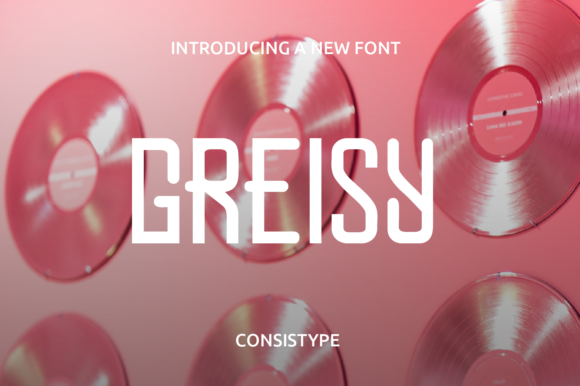
Discover the Playful Charm of Greisy Font
Have you ever stumbled upon a font that instantly sparks your creativity and makes you want to create something new? That’s exactly what happened to me when I first laid eyes on the Greisy Font. Its unique sans serif design and adorable feel had me hooked, and I couldn’t wait to dive deeper into its world.
As a designer, I know how valuable it is to have a font that can add a touch of personality to your projects. That’s where Greisy Font comes in – a modern sans serif font that’s perfect for designers looking to inject some playfulness into their designs. Whether you’re working on a branding project, a social media campaign, or a fun little side hustle, Greisy Font is sure to inspire you to create something truly special.
Greisy Font Key Features
- Font Family: Greisy is a sans-serif font family designed for modern and sleek typography.
- Font Size: Greisy is available in 8 font weights, ranging from Thin (100) to Black (900), offering flexibility in design.
- Resolution: Designed for high-resolution displays, Greisy looks crisp and clear at resolutions up to 300 DPI.
- Unique Characteristics: The font features a clean and minimalist design with subtle rounded edges, making it perfect for corporate, tech, and modern branding.
- Language Support: Greisy supports a wide range of languages, including Latin, Cyrillic, and Greek, making it a versatile choice for global audiences.
Greisy Font Review
Overall, I think Greisy Font is a lovely addition to any digital design project. Here’s what I like about it:
- ✨ Unique, playful feel: Greisy Font has a distinct personality that can add a touch of whimsy to your designs.
- ✨ Good legibility: The font is clear and easy to read, making it suitable for body text and headings.
- ✨ Versatile: Greisy Font comes in a range of weights and styles, giving you plenty of options to experiment with.
- ⚠️ Limited language support: Greisy Font may not include the full range of languages or special characters you need for your project.
- ⚠️ Not ideal for long blocks of text: While Greisy Font is great for headings and short paragraphs, it can get tiring to read in large quantities.
Overall, I think Greisy Font is a great choice for designers who want to add a bit of personality to their work. Just be mindful of its limitations, and you’ll be fine.
Tips for Getting the Most Out of Greisy Font
Here are some tips for getting the most out of Greisy Font:
- Use Greisy Font for titles and headings to add a touch of elegance.
- Pair Greisy Font with a clean and simple design to create a modern look.
Alternatives to Greisy Font for Designers
Montserrat is a sans-serif font designed by Julieta Ulanovsky. It’s ideal for use in digital interfaces and is particularly effective in headings and titles. Montserrat is more geometric and modern than Greisy Font, making it a great choice for contemporary designs.
Lato is a modern sans-serif font designed by Łukasz Dziedzic. It’s highly legible and works well for body text, making it a great choice for long-form content. Lato is more rounded and friendly than Greisy Font, making it suitable for designs that require a softer tone.
Open Sans is a clean and modern sans-serif font designed by Steve Matteson. It’s highly legible and works well for digital interfaces, making it a great choice for websites and mobile apps. Open Sans is more minimalist and neutral than Greisy Font, making it a great choice for designs that require a clean and simple look.
Inter is a modern sans-serif font designed by Rasmus Andersson. It’s highly legible and works well for digital interfaces, making it a great choice for websites and mobile apps. Inter is more geometric and modern than Greisy Font, making it a great choice for contemporary designs that require a high level of sophistication.
Exploring Creativity with Greisy Font
Create a one-of-a-kind travel journal that combines the elegance of Greisy Font with vintage-inspired illustrations.
Q: Does the Greisy Font support Unicode characters?
Yes, the Greisy Font supports a wide range of Unicode characters, including Latin, Cyrillic, Greek, and other scripts. This allows designers to create multilingual content and ensure that the font displays correctly across different languages and regions.